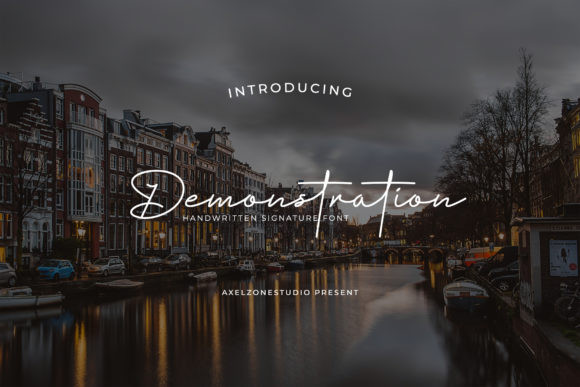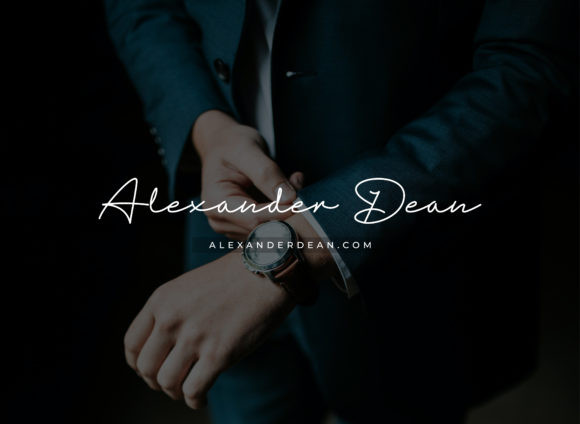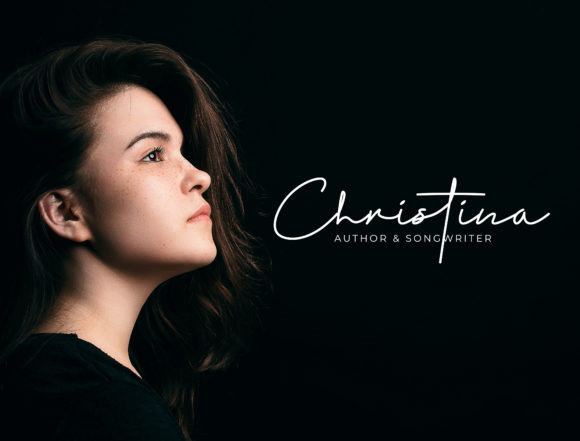
Demonstration Font
Demonstration is an incredibly distinct, delicate and timeless handwritten font. It looks stunning on wedding invitations, thank you cards, quotes, greeting cards, logos, business cards and every other design which needs a handwritten touch.